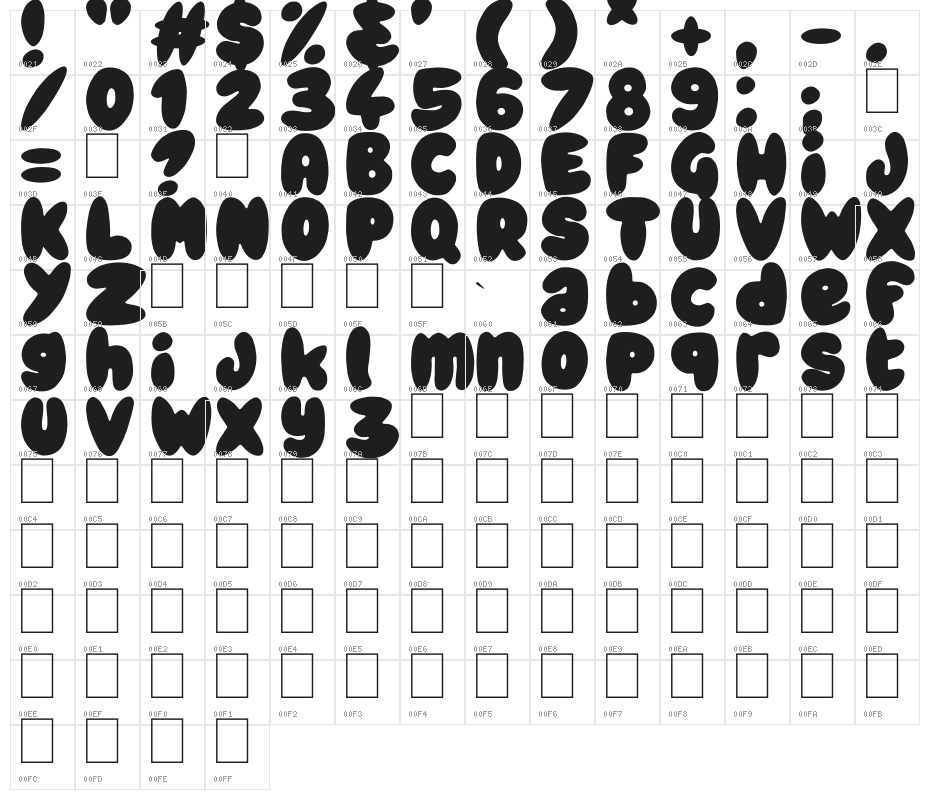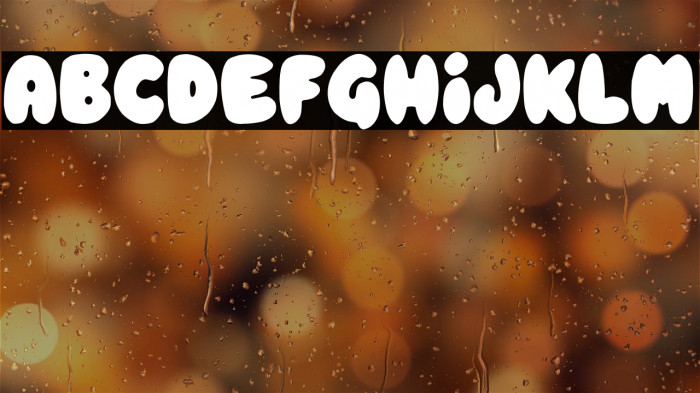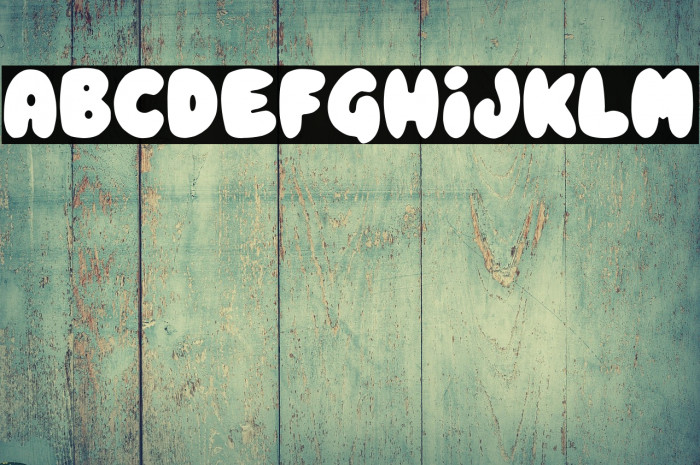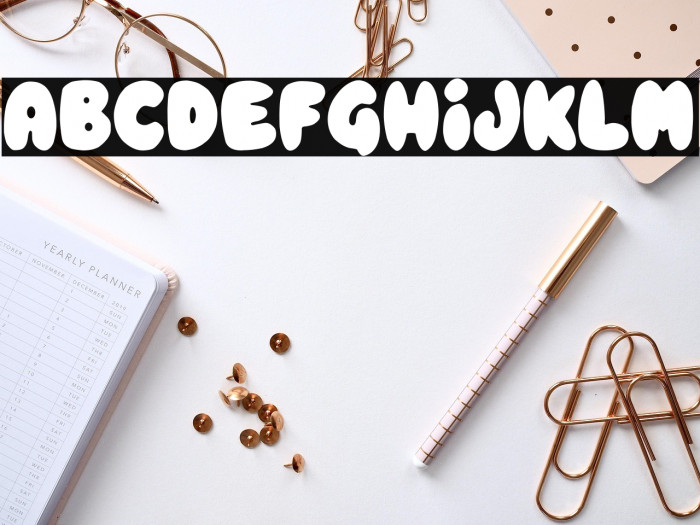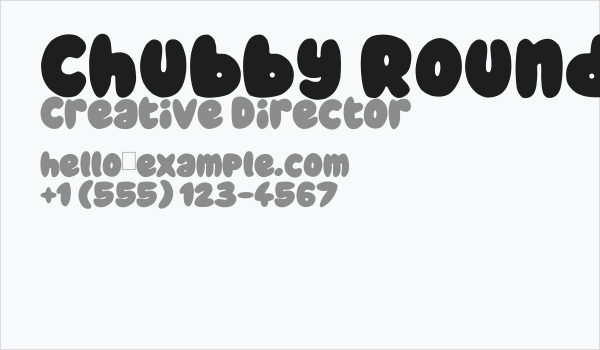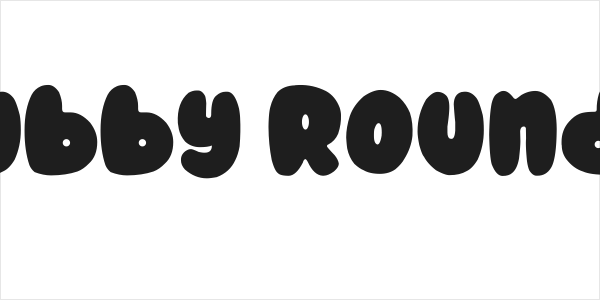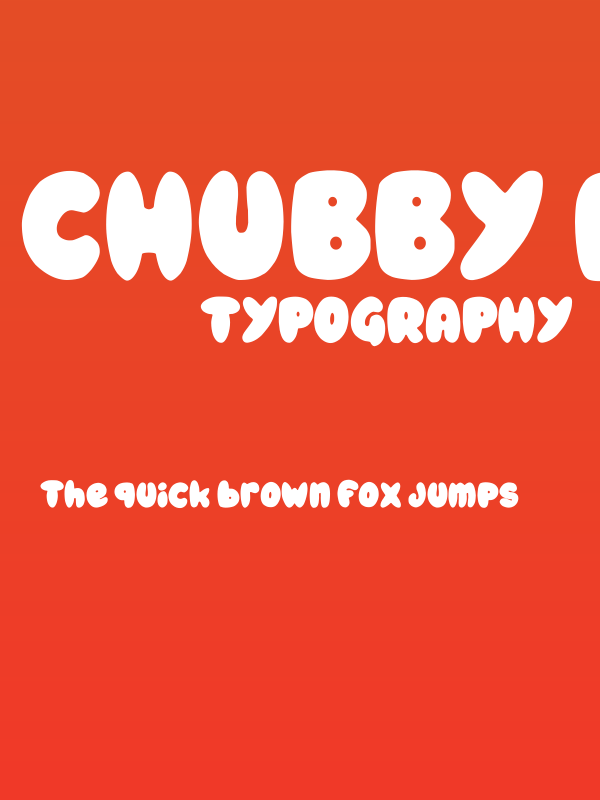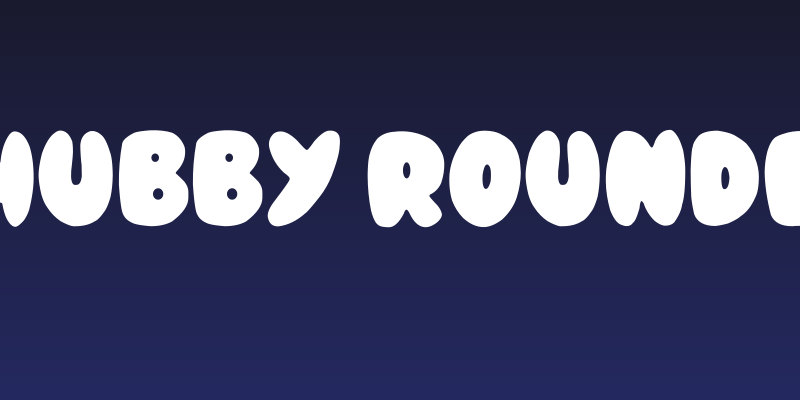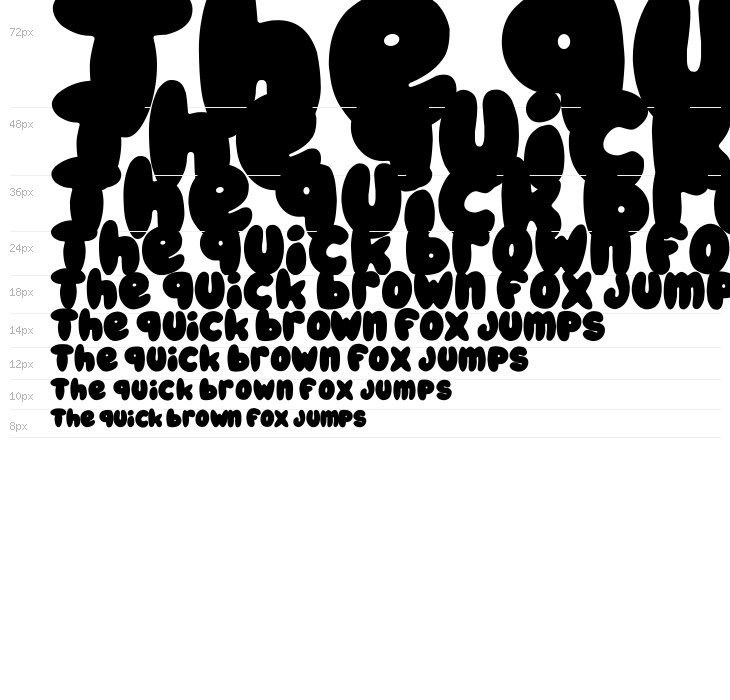
Chubby Rounded Font
Chubby Rounded Description
This playful and bold font features rounded, chubby characters that exude a sense of fun and whimsy. The letters are thick and uniform, with a smooth, flowing style that makes them highly legible despite their unconventional appearance. The font's bubbly nature is consistent across uppercase, lowercase, numbers, and special characters, creating a cohesive look. Its unique style is perfect for projects that aim to convey a lighthearted and approachable tone. The consistent thickness of the strokes and the rounded edges contribute to its friendly and inviting aesthetic.
| Overall Style | Playful |
| Use Case | Logos, Headlines, Posters |
| Proposed Projects | Ideal for children's books, playful branding, party invitations, and casual posters. |